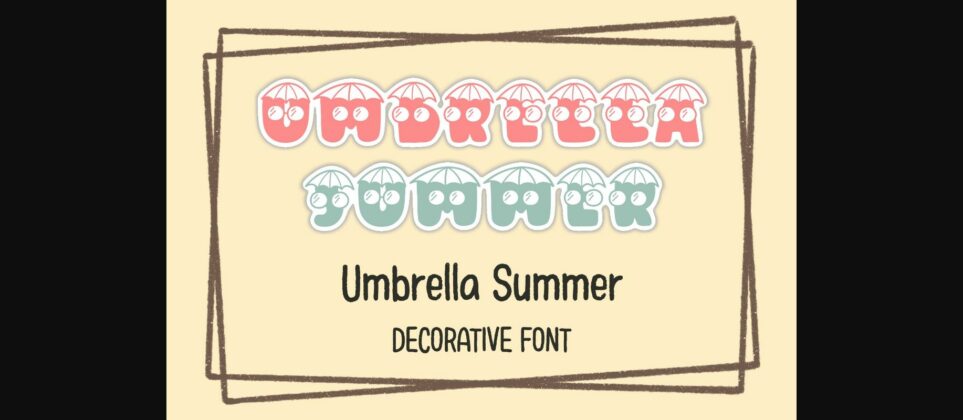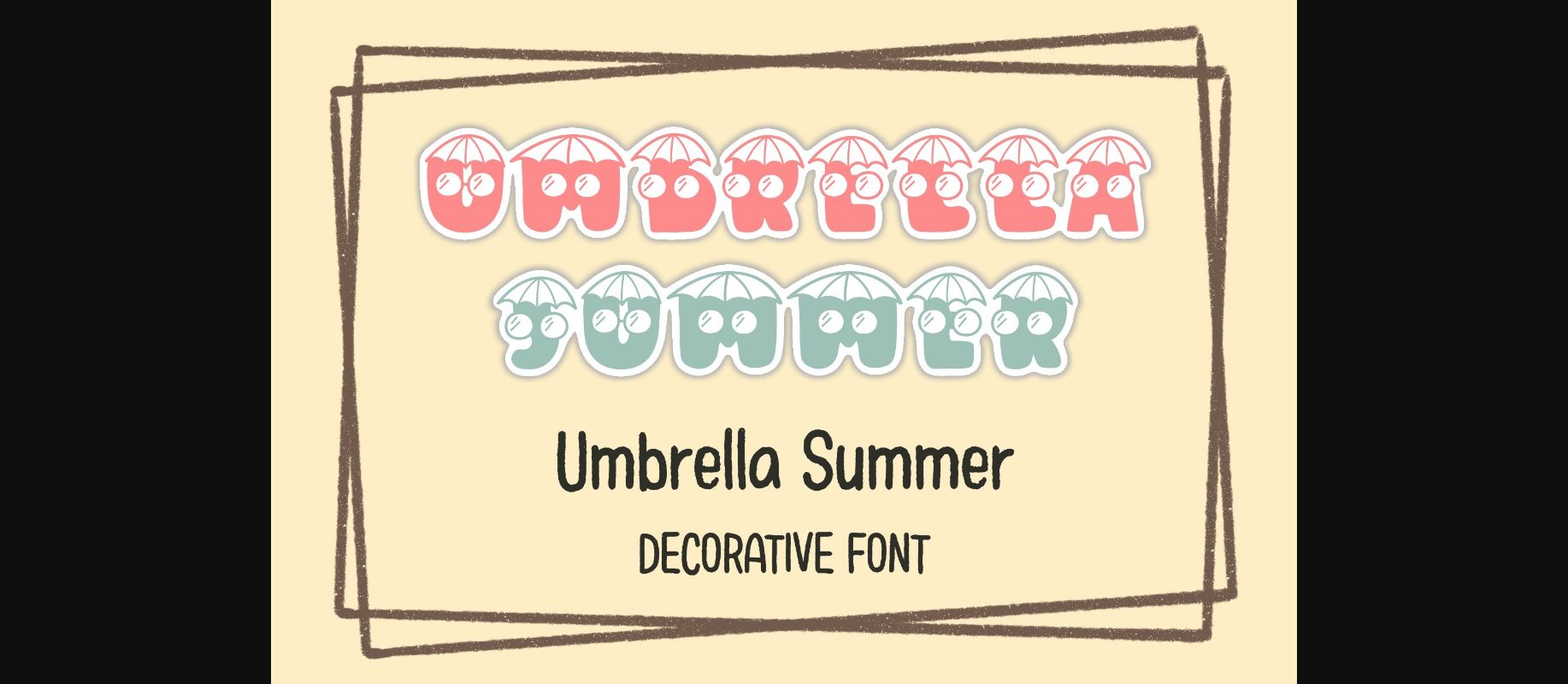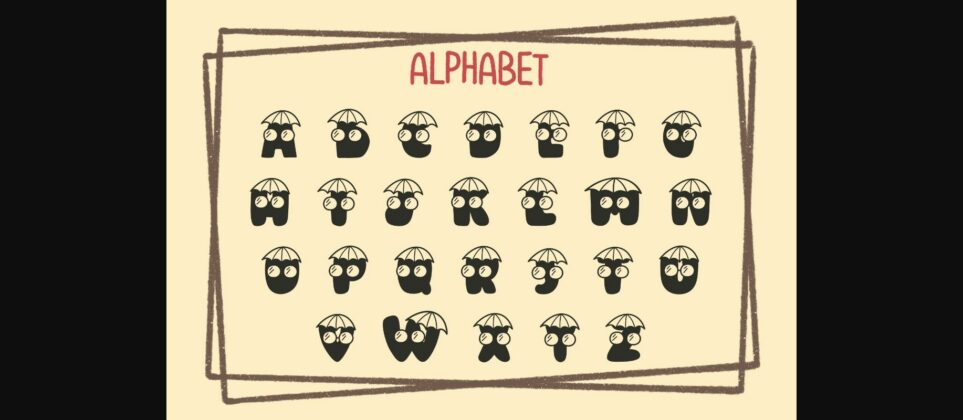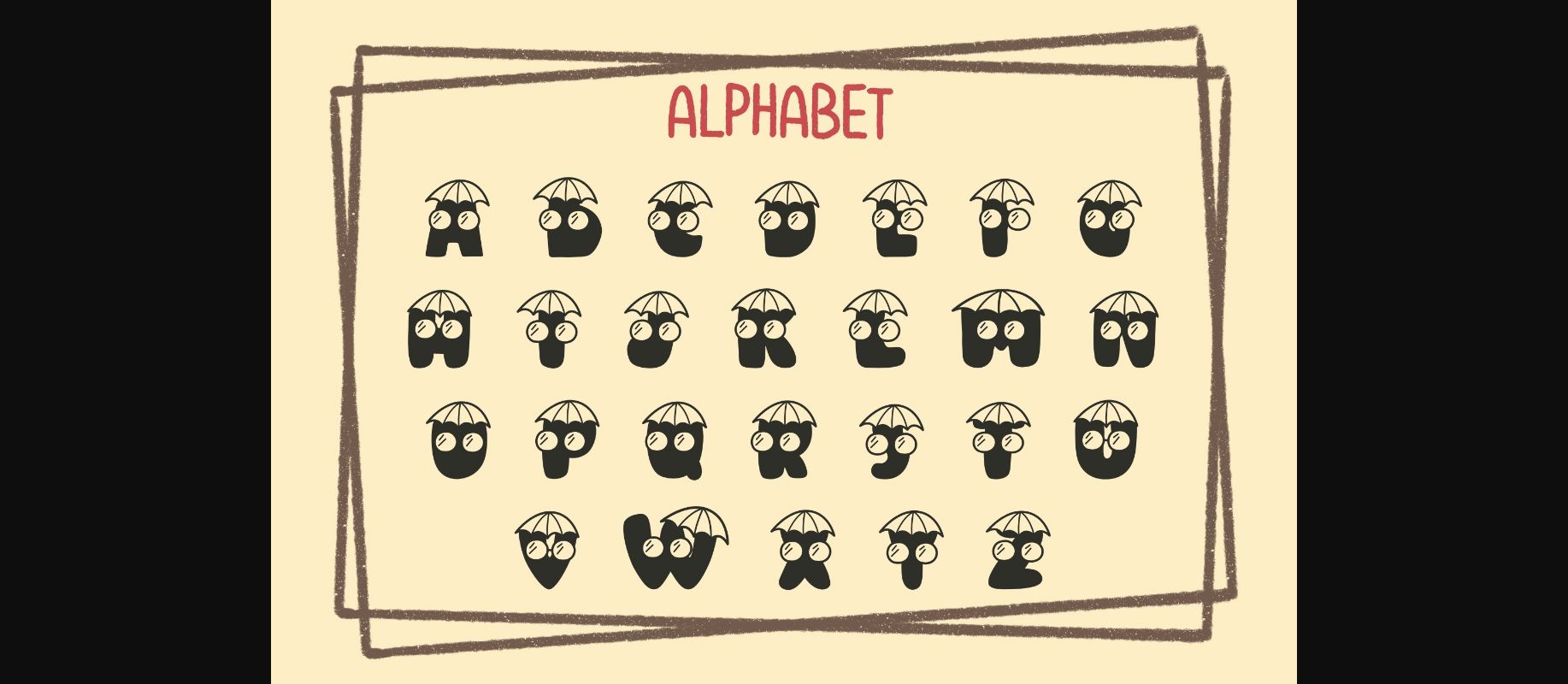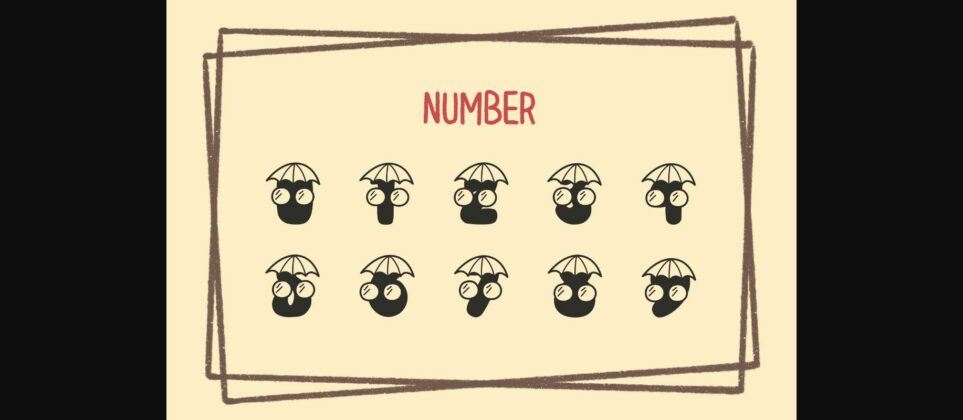
Umbrella Summer Font
About Umbrella Summer Font
Umbrella Summer is a cool and original decorative font. This font is the perfect fit for all of your logos, branding, social media, crafty DIY projects, and much more!